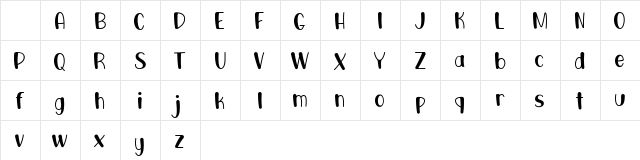
Complete Mongkey werch demo Regular glyph index. Displaying only characters natively supported by Mongkey werch demo Regular font.
Mongkey werch demo is a composed and adaptable typeface that performs quietly and consistently across a wide range of design contexts.
Pro Tip: Use Mongkey werch demo in both headline and body roles to test its range before committing to a single application.